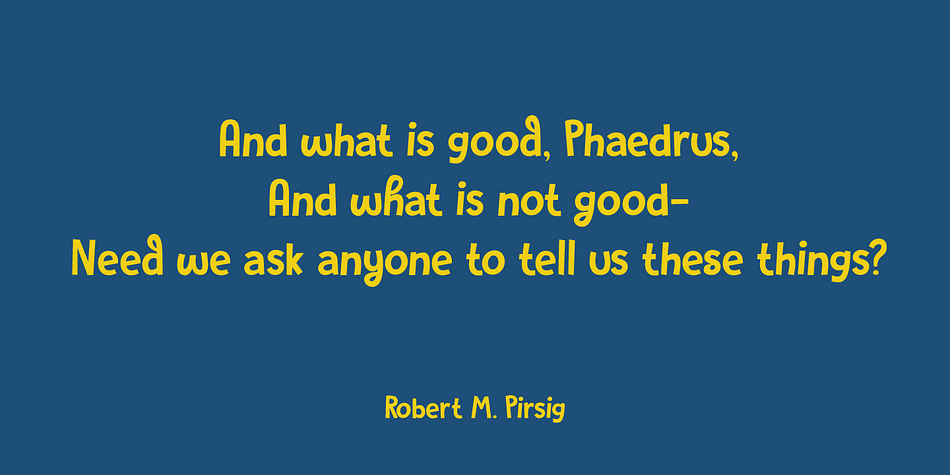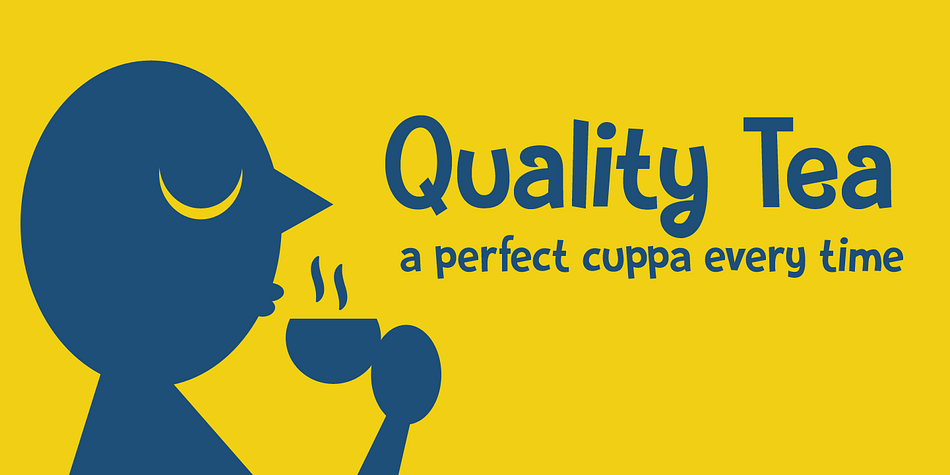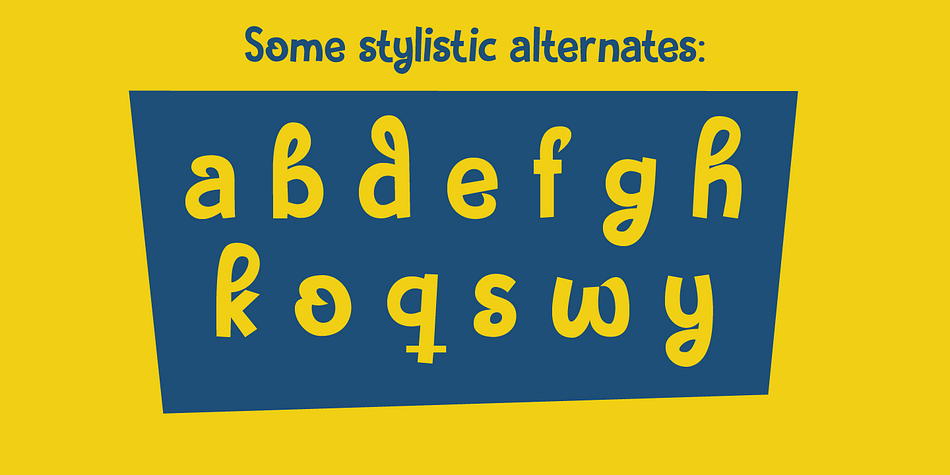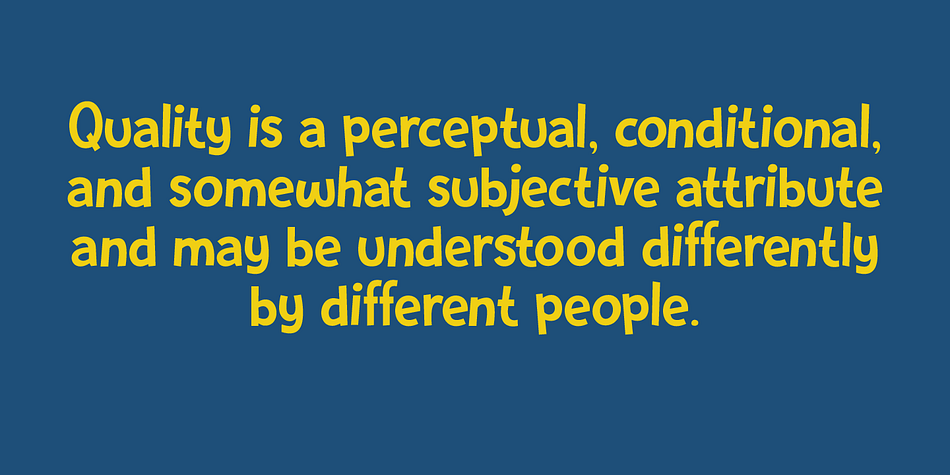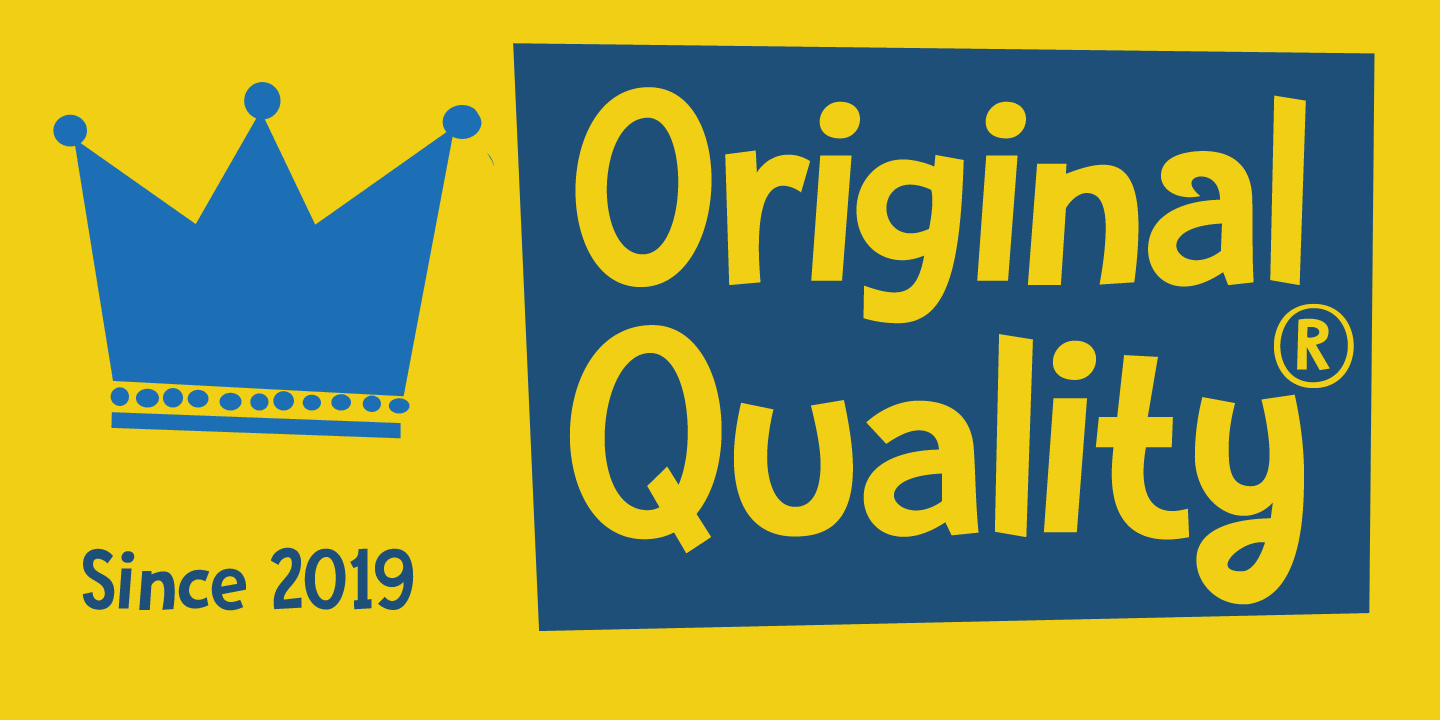
Designed by David Kerkhoff, Original Quality is a hand display font family. This typeface has two styles and was published by Hanoded.
Original Quality: I often see these words on various objects - from T-shirts to sprinkles and cookies. In fact, I see this term so often that I decided to name a font after it. Original Quality font is an adaptation of an older font of mine called Butterfly Ball. It is a totally different typeface, but I hope it hasn’t lost its original quality… ;-)
Comes with all the diacritics you want, plus a handful of cute stylistic alternates.